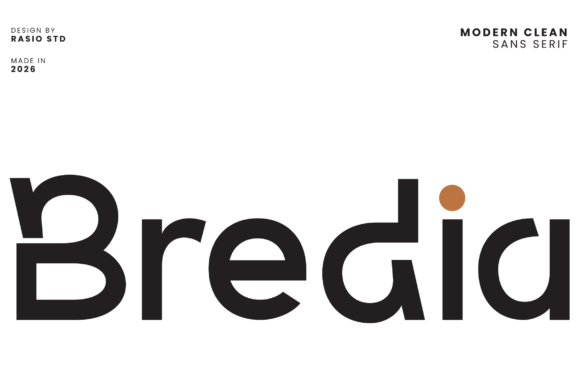
What is Bredia Font?
Bredia is a modern, clean sans serif typeface designed with clarity and contemporary aesthetics in mind. Featuring balanced proportions, geometric influences, and soft terminal cuts, Bredia is built for brands that value precision and simplicity. This typeface includes full uppercase and lowercase characters, numerals, punctuation, and symbols, making it suitable for both digital interfaces and printed compositions.
My Honest Review of Bredia Font
- ✨ Clean and Modern Aesthetic: Bredia’s sleek design makes it perfect for contemporary brands.
- ✅ High Readability: The balanced proportions and clear letterforms ensure that text is easy to read, even at small sizes.
- 💡 Versatility: Bredia works well in both digital and print applications, from websites to business cards.
- 🔍 Geometric Influences: The subtle geometric touches give Bredia a unique and sophisticated feel.
- 🤔 Limited Character Variations: While Bredia includes a wide range of characters, it may not offer the extensive stylistic variations some designers might need.
- ⚠️ Not Ideal for Body Text: Due to its clean and modern design, Bredia might not be the best choice for lengthy body text, where a more traditional serif font might be more readable.
The Story Behind Bredia Font
Bredia was created with the goal of providing a clean, modern sans serif typeface that meets the needs of contemporary design. Inspired by geometric influences and a desire for clarity, Bredia aims to be a versatile font suitable for a wide range of applications. While the exact designer behind Bredia may not be well-documented, the font’s aesthetic suggests a careful consideration of modern design trends and user needs.
| Font Name | Bredia Font |
| Author | product.rasiostudio |
| What is Bredia Font? | Bredia Font is a modern, clean sans serif typeface designed for clarity and contemporary aesthetics. |
| Is Bredia suitable for digital use? | Yes, Bredia is designed to be highly legible on digital screens, making it suitable for websites, apps, and other digital interfaces. |
| Can I use Bredia for print projects? | Absolutely! Bredia’s clear and balanced design makes it a great choice for print materials like brochures, posters, and business cards. |
| Does Bredia support multiple languages? | Yes, Bredia includes a wide range of characters and supports multiple languages. |